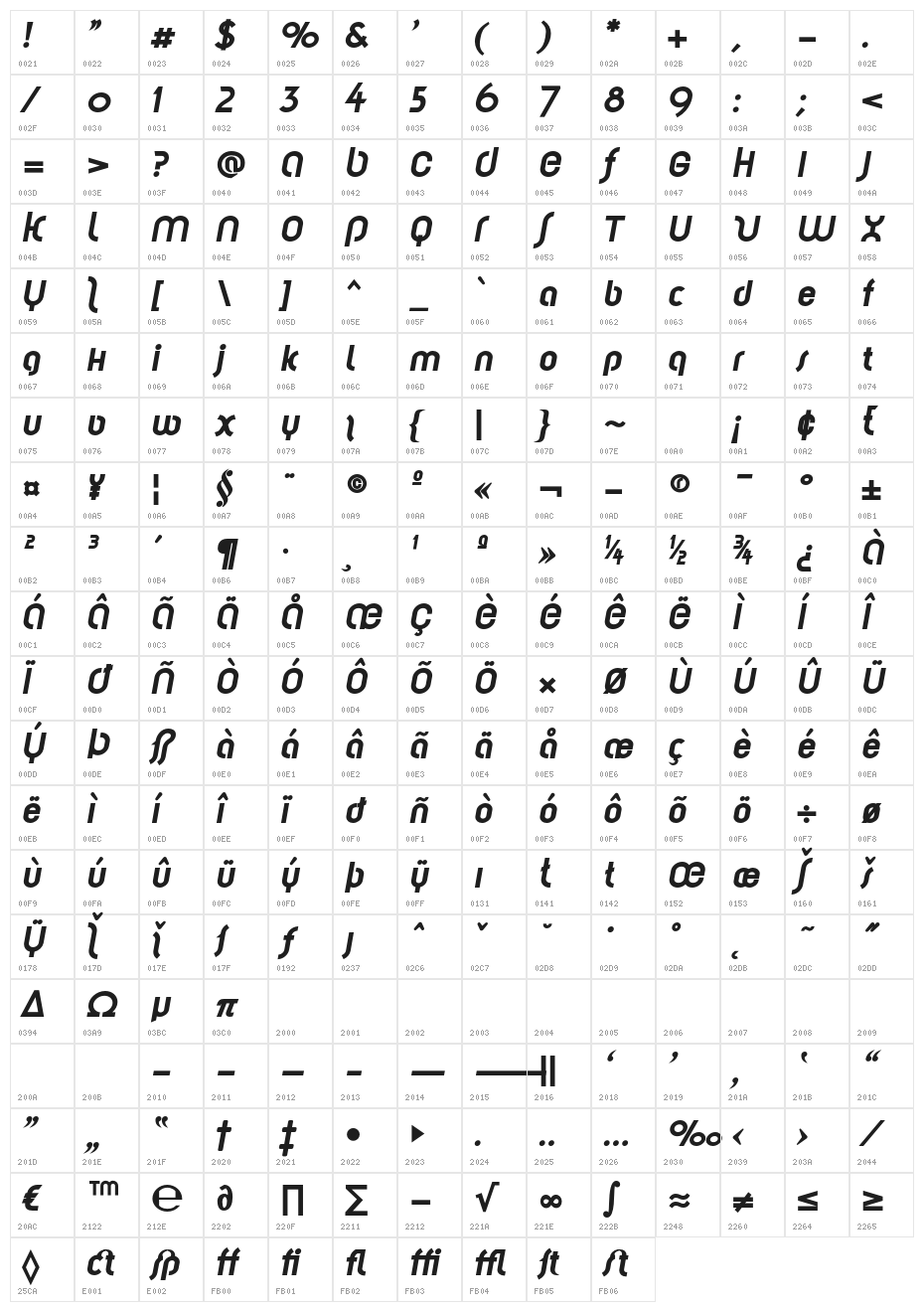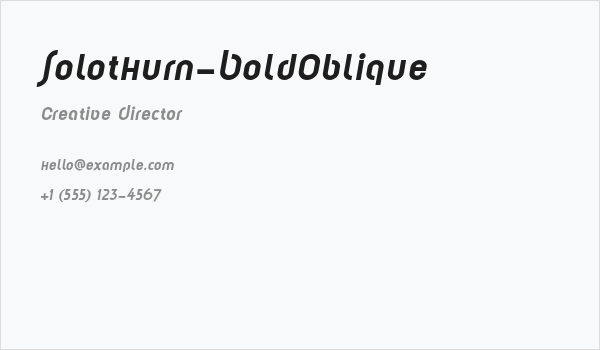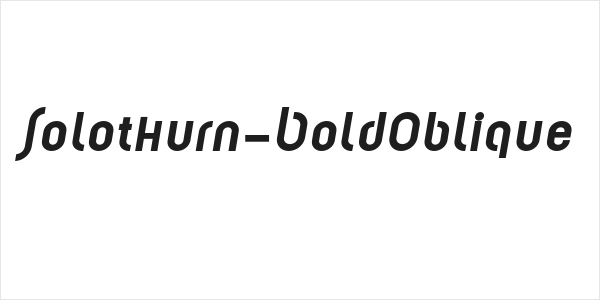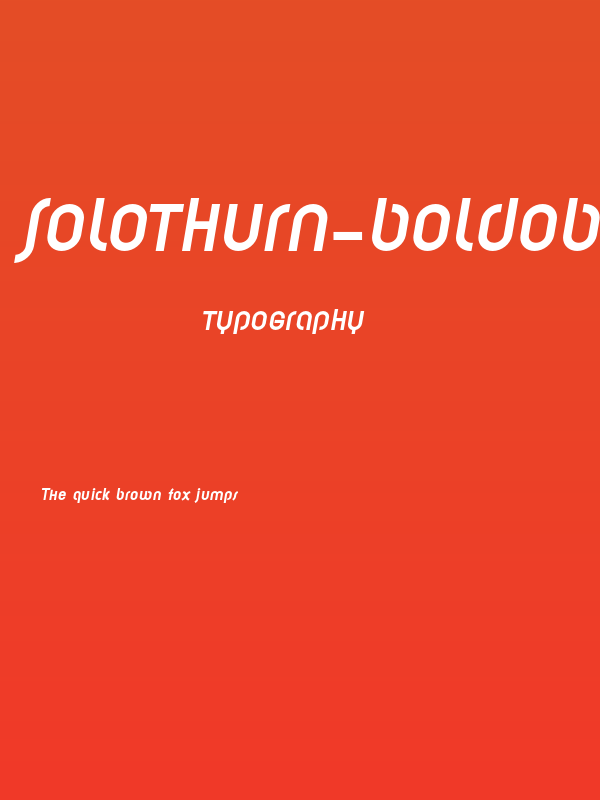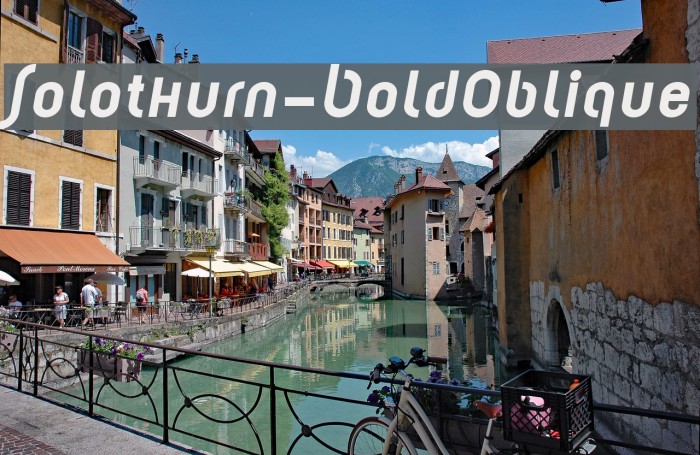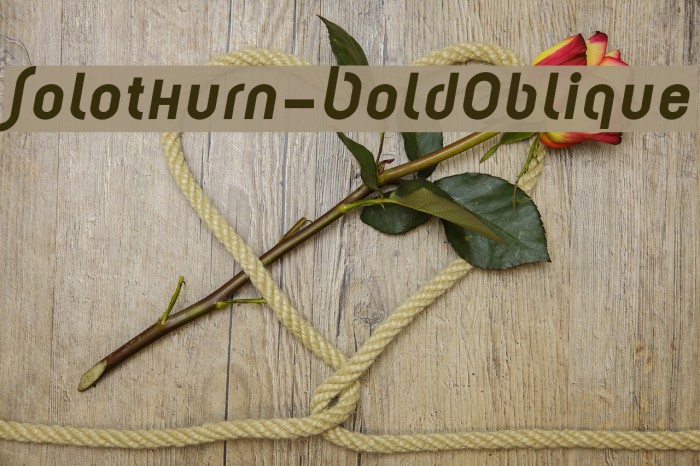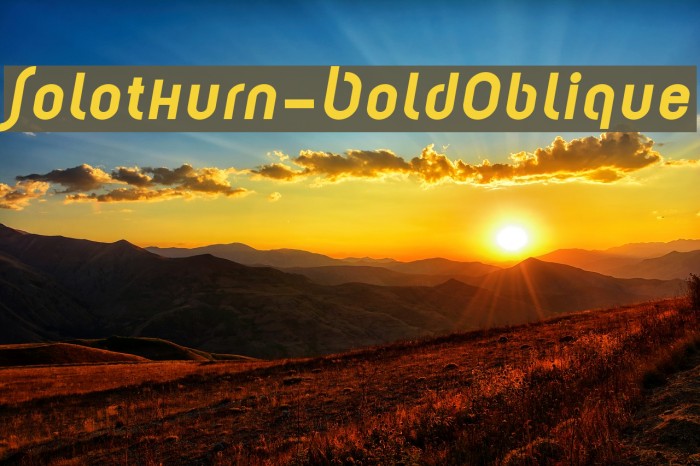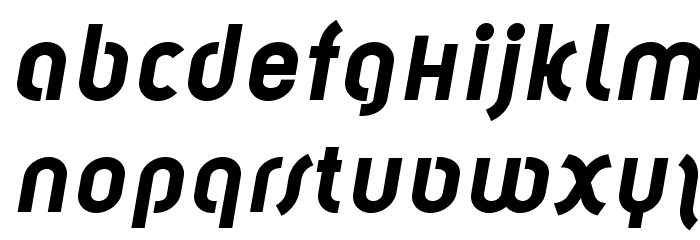
Solothurn-BoldOblique Font
Solothurn-BoldOblique Description
This font exhibits a bold and oblique style, characterized by its strong, slanted letterforms that convey a sense of motion and dynamism. The characters are well-defined with a consistent stroke weight, providing a uniform appearance across both uppercase and lowercase letters. The numerals and special characters maintain the same boldness, ensuring readability and impact. The overall design is modern, with a slight geometric influence, making it suitable for contemporary applications. The spacing between characters is balanced, allowing for clear legibility even at smaller sizes.
Fonts by Arkandis Digital Foundry
| Use Case | Headlines, Logos, Advertising |
| Proposed Projects | Ideal for branding, advertising, headlines, and digital media where a strong, modern presence is desired. |